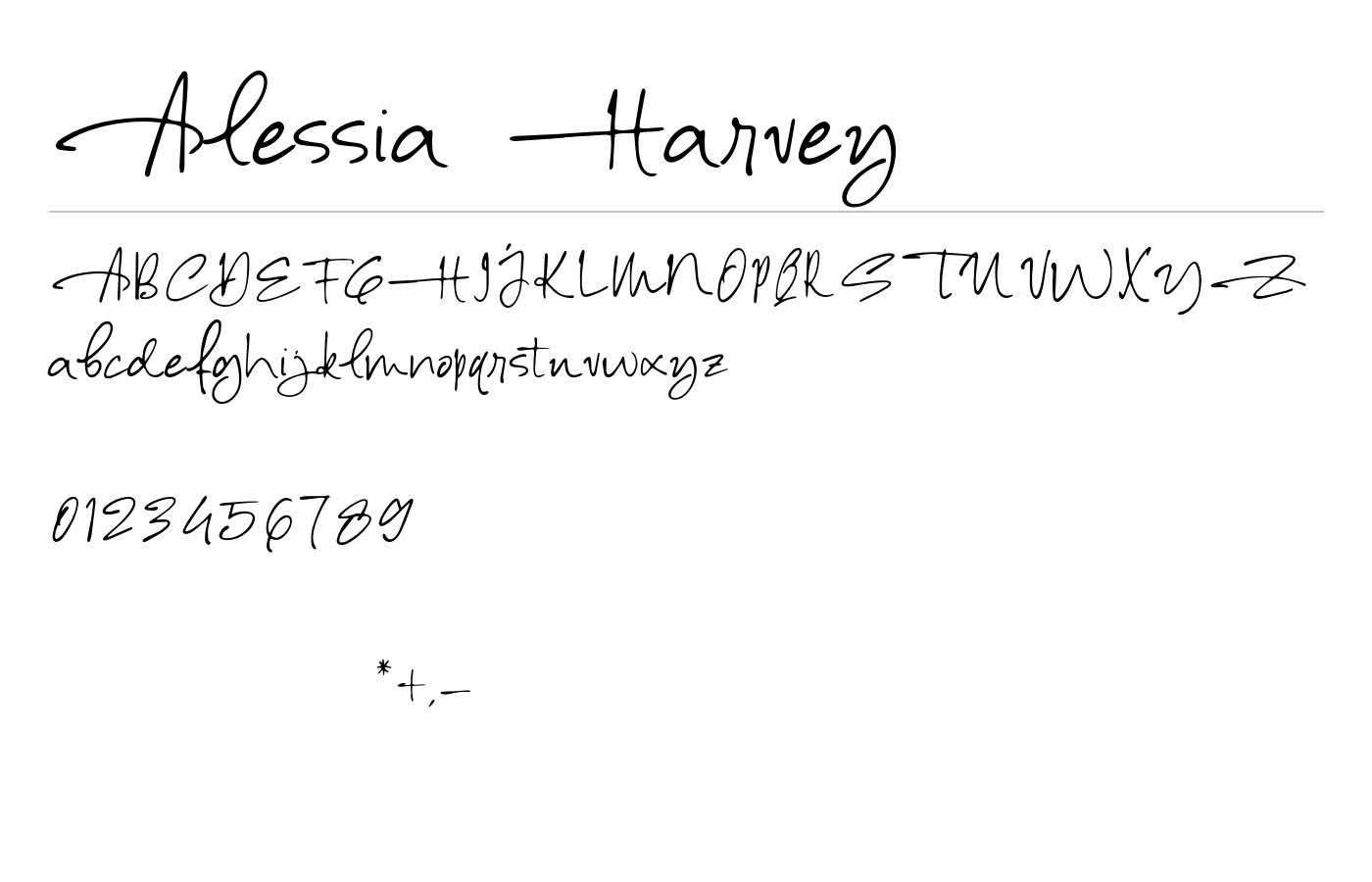
Alessia Harvey is a delicate, hand-drawn script font with a slender, airy feel and elegant, flowing strokes. Its narrow letterforms and casual yet refined style make it perfect for branding, invitations, and creative projects that want a personal, sophisticated touch. This font works well in both headlines and short texts where a charming, handwritten vibe is desired.
Alessia Harvey Font
About Alessia Harvey Font